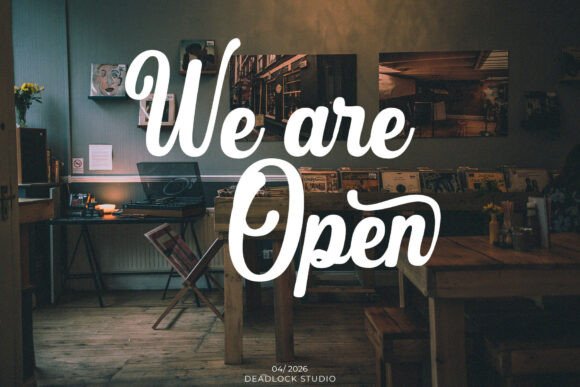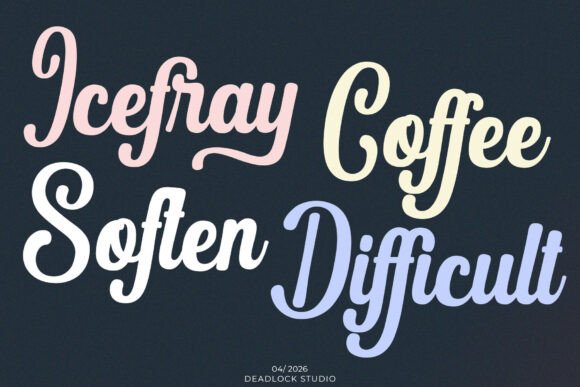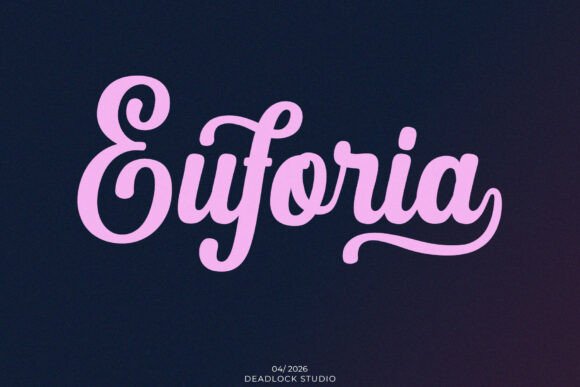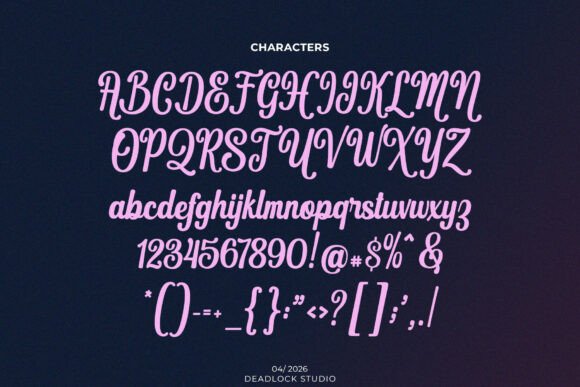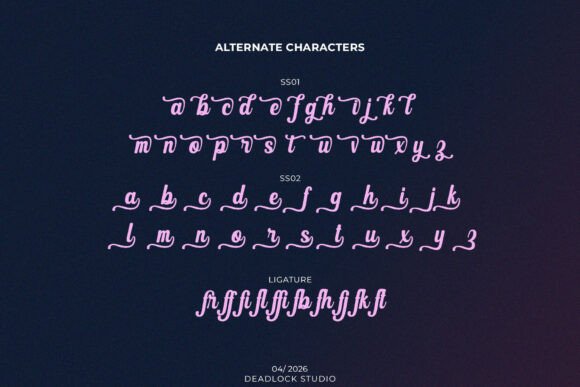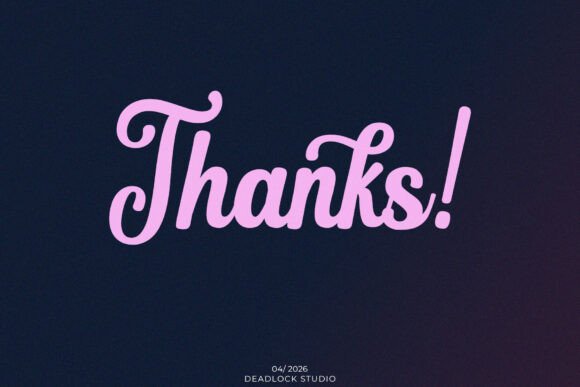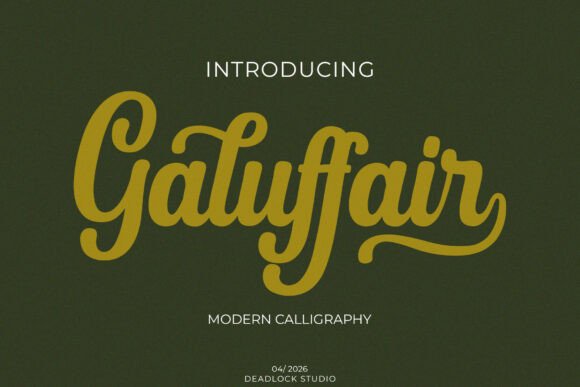
Introducing Gallufair Font: Elevate Your Creative Vision with Modern Calligraphy
In the world of typography, few fonts manage to strike a perfect balance between classic elegance and contemporary flair. Gallufair Font is one such exceptional typeface that seamlessly merges traditional sophistication with modern style. This stunning calligraphy script is designed to elevate your creative vision, adding a touch of artisanal luxury to every word.
Characteristics of Gallufair Font
So, what makes Gallufair Font stand out from the rest? Here are some of its key characteristics:
• Fluid, Upright Stems: Gallufair’s stems are designed to be fluid and upright, providing a sense of stability and structure to your text.
• Swashing Elegance: The font features sweeping swashes that add a touch of drama and sophistication to your words.
• Medium-Bold Weight: With a medium-bold weight, Gallufair Font strikes the perfect balance between visibility and elegance.
• Soft, Rounded Terminals: The font’s soft, rounded terminals add a warm and inviting touch to your text, making it perfect for a wide range of design applications.
The Perfect Choice for Luxury Branding and Design
Gallufair Font is an exceptional choice for designers and crafters looking to add a touch of luxury to their work. Its unique blend of classic elegance and modern style makes it perfect for:
• Luxury Branding: Use Gallufair Font to create stunning logos, business cards, and marketing materials that exude high-end sophistication.
• Bespoke Wedding Stationery: Add a touch of romance and elegance to your wedding stationery with Gallufair Font.
• High-End Editorial Layouts: Use Gallufair Font to create visually stunning editorial layouts that showcase your brand’s personality and style.
• Chic Social Media Graphics: Elevate your social media graphics with Gallufair Font, adding a touch of sophistication and elegance to your online presence.
Why Choose Gallufair Font?
So, why should you choose Gallufair Font for your design projects? Here are just a few reasons:
• Effortless Beauty: Gallufair Font delivers a sense of effortless beauty to your visual storytelling, making it perfect for designers and crafters who want to create stunning designs with ease.
• Handcrafted Prestige: With its unique blend of classic elegance and modern style, Gallufair Font provides a sense of handcrafted prestige to your designs, making them stand out from the rest.
• High Legibility: Despite its elegant and sophisticated design, Gallufair Font remains highly legible across various media, making it perfect for a wide range of design applications.
Tips for Using Gallufair Font
Here are a few tips for using Gallufair Font in your design projects:
• Pair with Simple Fonts: Pair Gallufair Font with simple fonts to create a stunning contrast that showcases its elegance and sophistication.
• Use for Headings and Titles: Use Gallufair Font for headings and titles to add a touch of luxury and sophistication to your designs.
• Experiment with Swashes: Experiment with Gallufair’s swashes to add a touch of drama and elegance to your words.
In conclusion, Gallufair Font is an exceptional typeface that perfectly balances classic elegance with contemporary flair. Its unique blend of fluid, upright stems and sweeping swashes makes it perfect for luxury branding, bespoke wedding stationery, high-end editorial layouts, and chic social media graphics. With its effortless beauty, handcrafted prestige, and high legibility, Gallufair Font is an excellent choice for designers and crafters looking to elevate their creative vision and add a touch of sophistication to their designs.